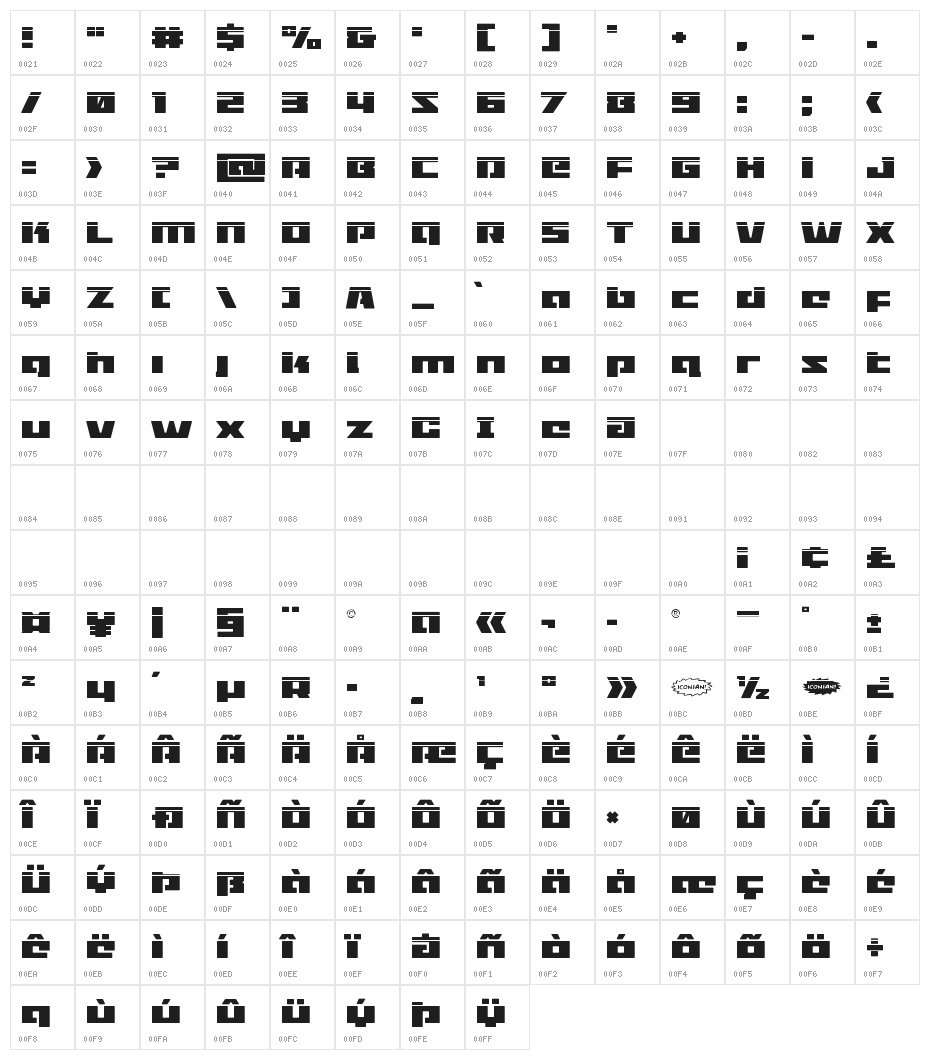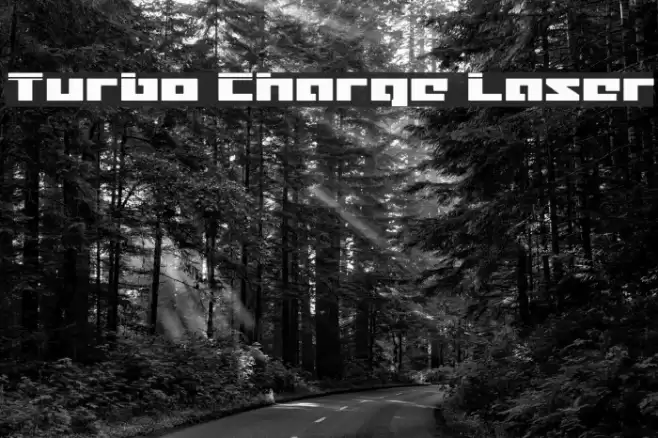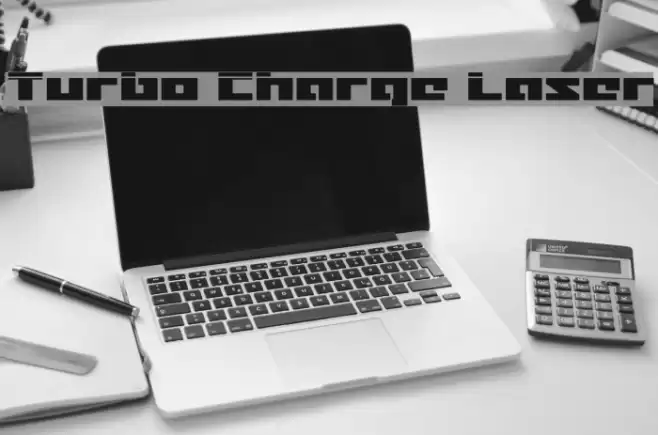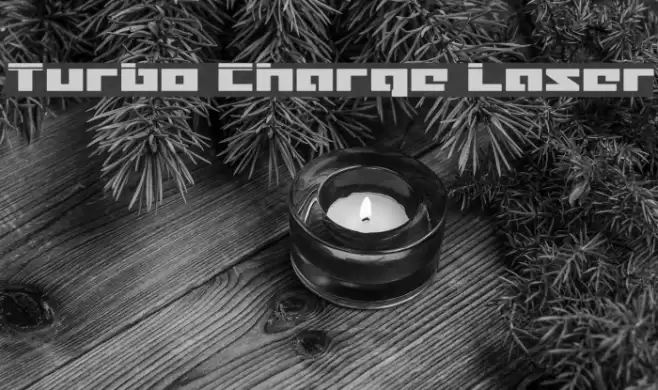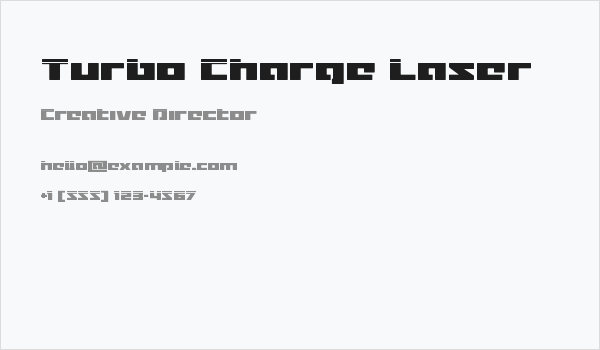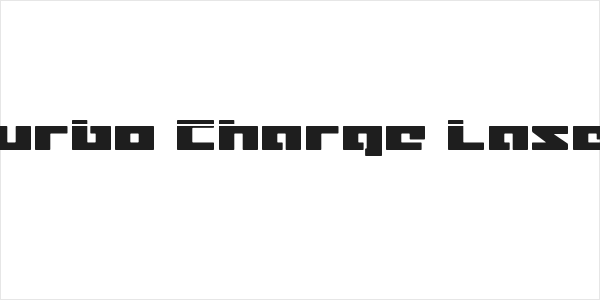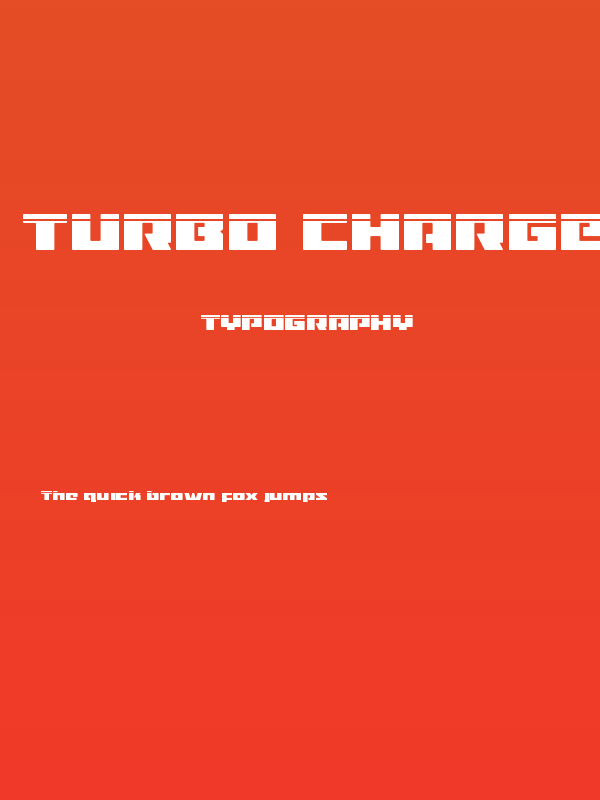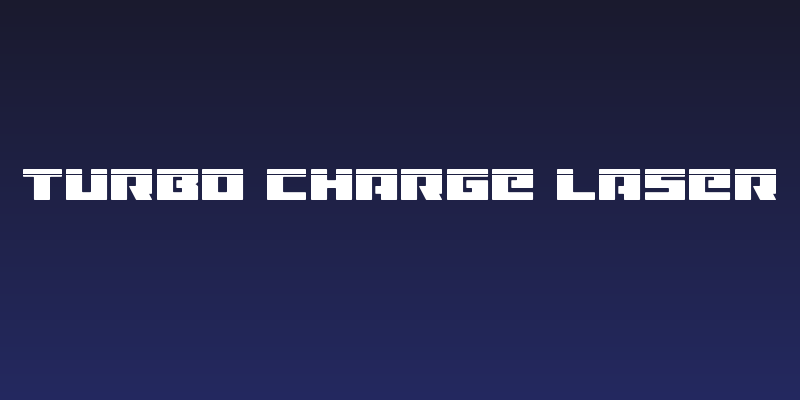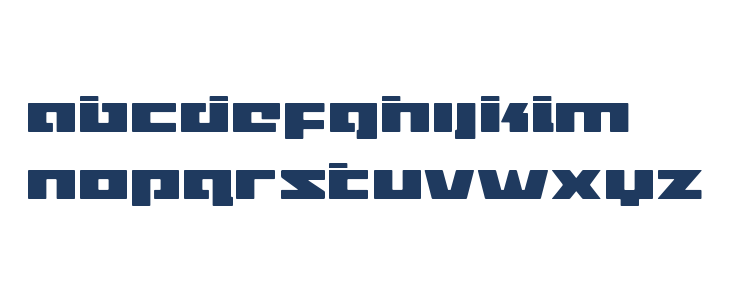
Turbo Charge Laser Font
Turbo Charge Laser Description
This font features a bold, futuristic design with a strong geometric structure. The characters are blocky and angular, giving a sense of strength and modernity. Each letter is crafted with sharp edges and a uniform thickness, creating a cohesive and impactful appearance. The font includes uppercase and lowercase letters, numbers, and a variety of special characters, all maintaining the same bold style. Its distinct look makes it ideal for projects that require a modern and tech-savvy aesthetic.
| Proposed Projects | Ideal for technology branding, video game titles, sci-fi movie posters, and modern digital interfaces. |